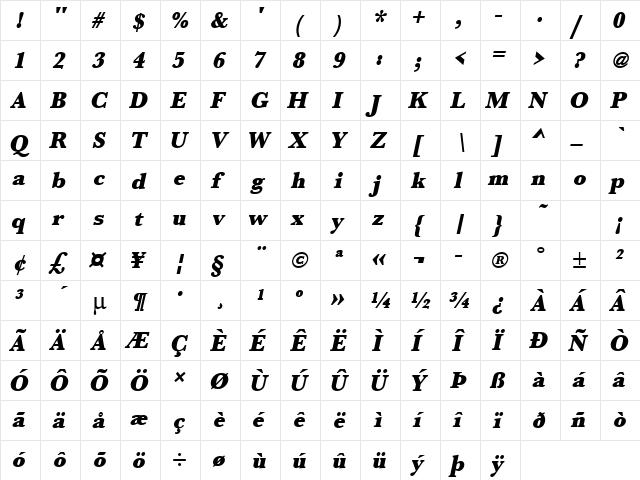
URWBaskerTUltBolNar Oblique
Design Context for URWBaskerTUltBolNar Typeface
URWBaskerTUltBolNar takes a measured approach to typography — its balanced proportions and neutral character make it a reliable workhorse for both digital and print work. The dynamic lean of this cut emphasises speed and emphasis in any layout.
Pro Tip: Use URWBaskerTUltBolNar for emphasis, pull quotes, and subheadings where its slanted energy can add rhythm to the layout.